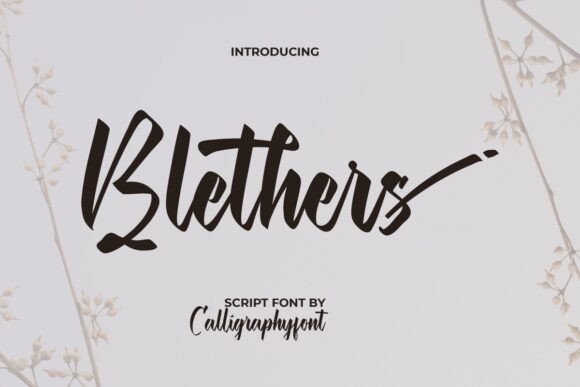
Discover the Charm of Blethers Font: A Feminine Script Font for Creative Projects
Have you ever been in the middle of working on a design project, and suddenly, you’re stuck because you just can’t find the right font? I recall a recent experience where I was tasked with creating an invitation card for a friend’s wedding. The client wanted something elegant, yet modern, and I was on a mission to find the perfect font. That’s when I stumbled upon Blethers Font, a beautiful feminine script font that instantly captured my attention.
Blethers Font is a versatile typeface with a modern aesthetic, allowing you to explore limitless creativity. Its charm lies in its elegant characters with bold and stylish contrasting strokes, making it perfect for a wide range of design projects.
What I Love About Blethers Font
Here’s what makes Blethers Font stand out:
- ✨ Elegant and Feminine: The font exudes a sense of sophistication and femininity, making it ideal for projects that require a touch of elegance.
- ✅ Handmade and Unique: The font’s handmade nature gives it a personal touch, making each character feel unique and special.
- ✅ Ligature Characters and Alternative Styles: The addition of ligature characters and alternative styles increases the font’s artistic value, allowing you to experiment with different looks.
- ✅ Modern Aesthetic: The font’s modern design makes it perfect for a wide range of projects, from business branding to social media graphics.
While Blethers Font is an excellent choice, there are a few things to keep in mind:
- ⚠️ Legibility at Small Sizes: As with many script fonts, Blethers Font may not be the best choice for small text sizes, as some details may get lost.
- 🤔 Pairing with Other Fonts: While the font pairs well with sans-serif and serif fonts, it may require some experimentation to find the perfect combination.
The Story Behind Blethers Font
Blethers Font was designed with the intention of creating a beautiful, elegant script font that captures the charm of human writing. The designer aimed to create a font that feels personal and unique, making it perfect for a wide range of creative projects.
| Font Name | Blethers Font |
| Author | CalligraphyFonts |
| What is Blethers Font best used for? | Blethers Font is perfect for projects that require a touch of elegance and sophistication, such as wedding invitations, logo designs, and social media graphics. |
| Is Blethers Font suitable for body text? | While Blethers Font is beautiful, it’s best used for headings and short text. For body text, a more legible font would be a better choice. |
| Is Blethers Font easy to read? | Blethers Font is a script font, and while it’s beautiful, it may not be the most legible font for small text sizes. However, it’s perfect for headings and short text. |